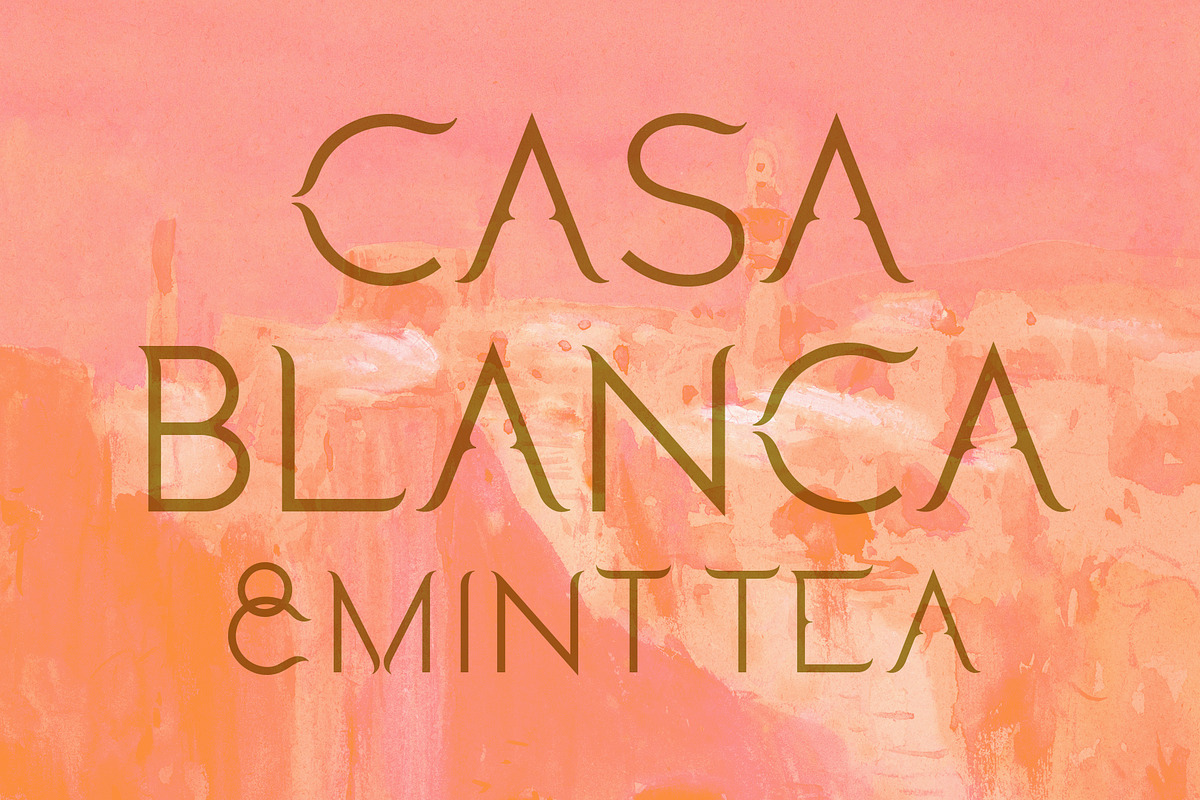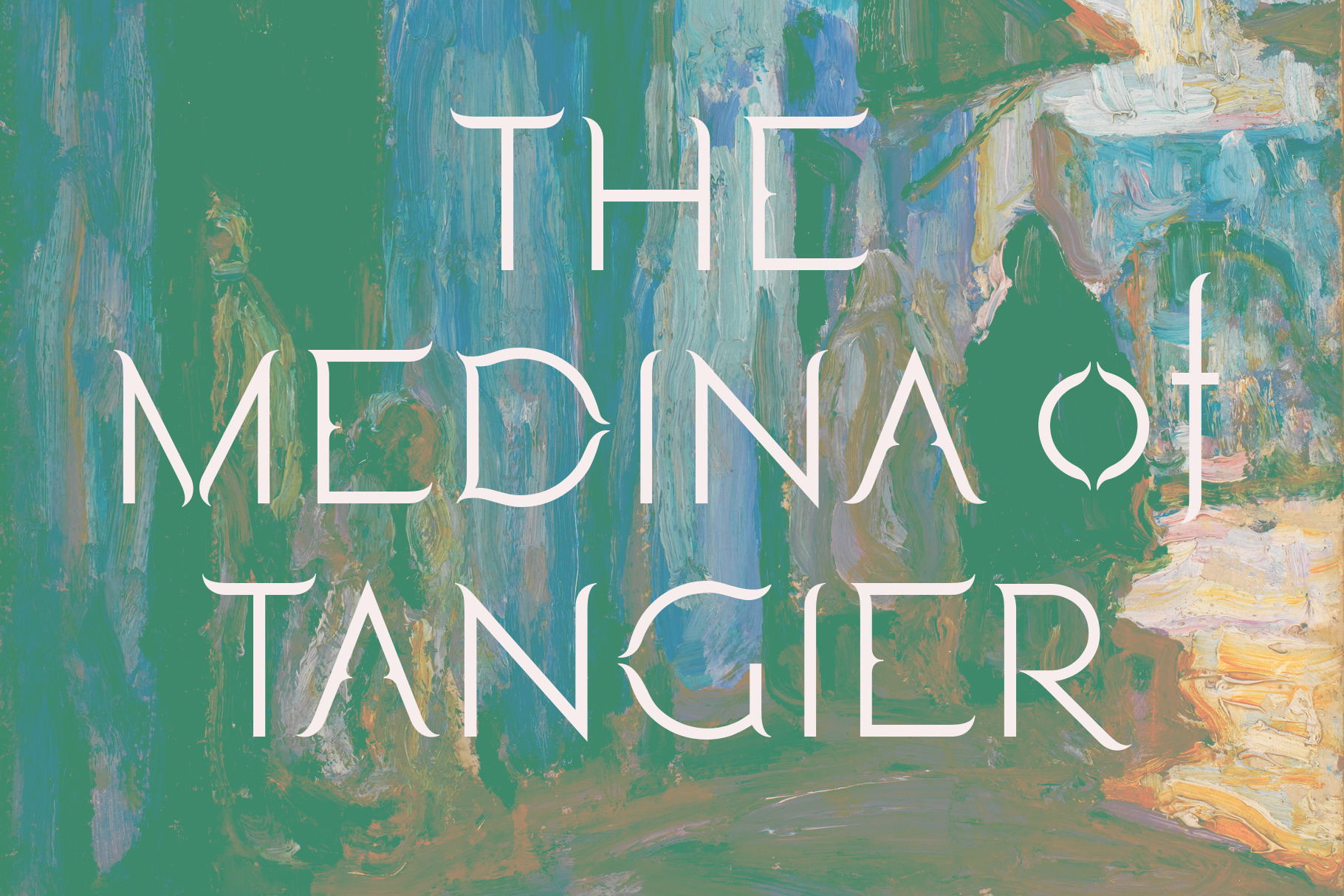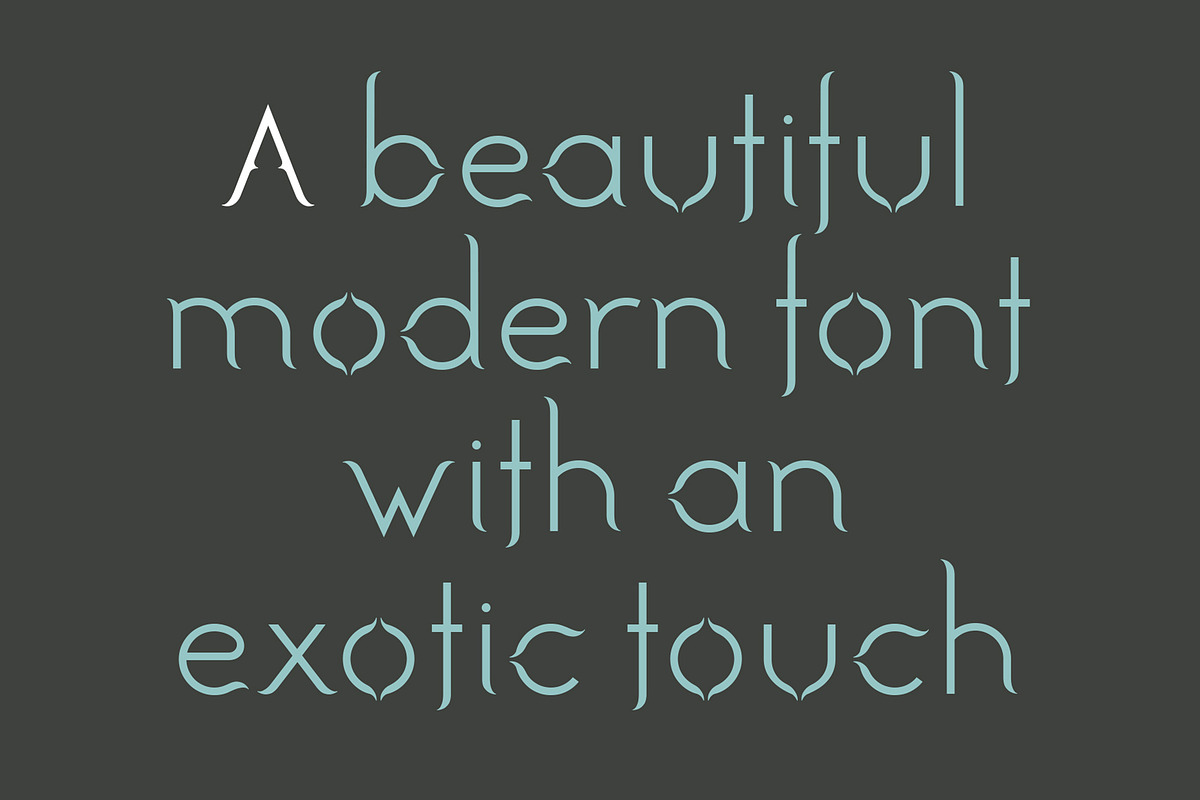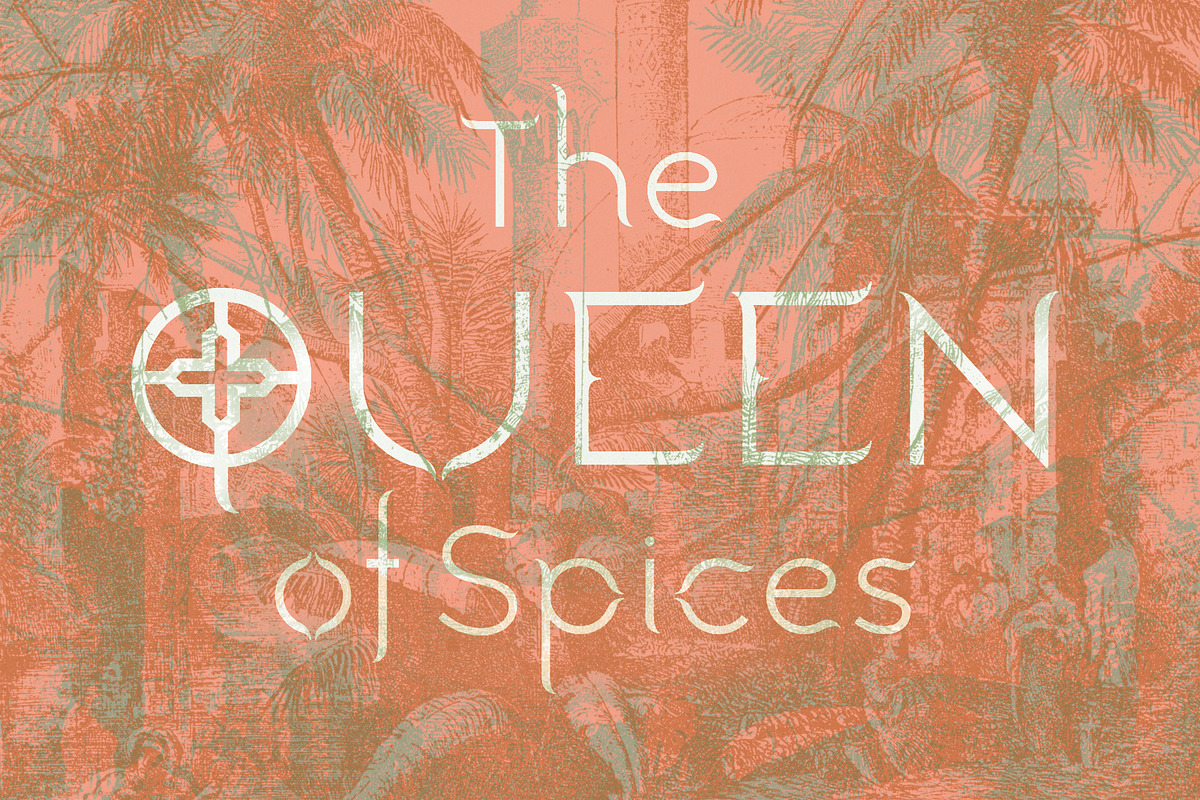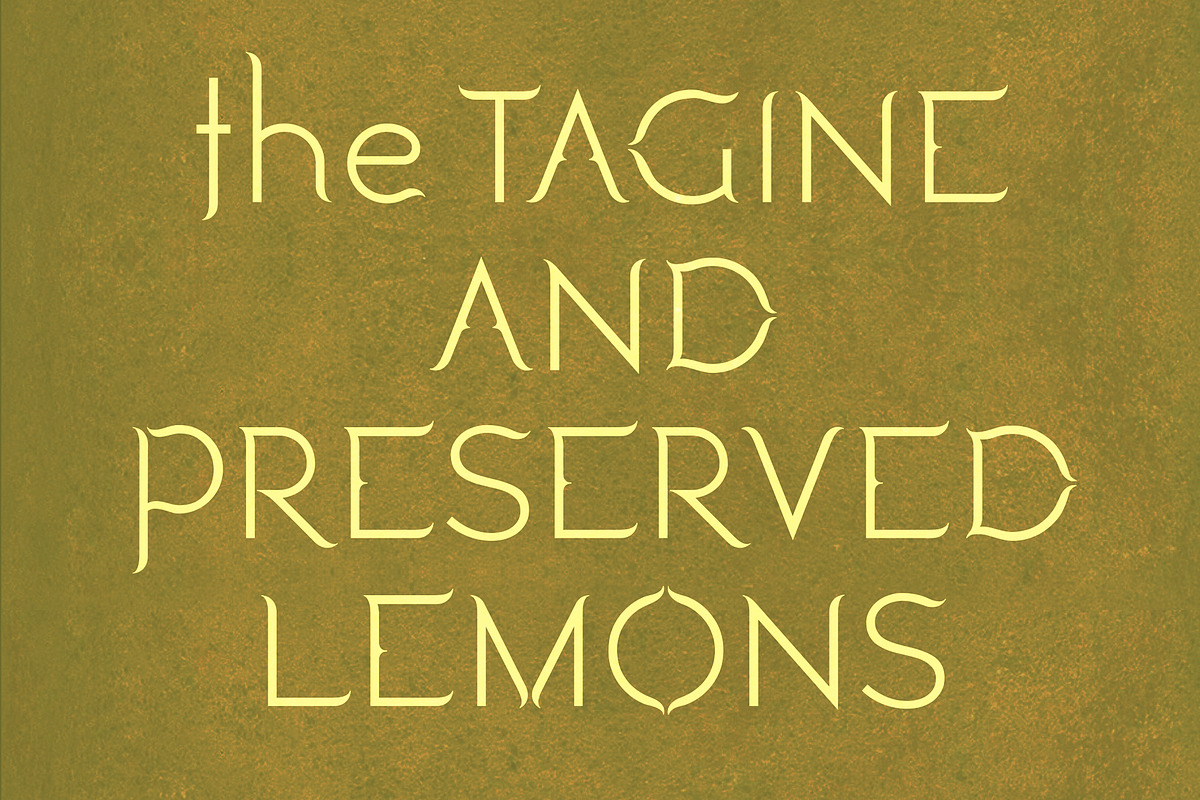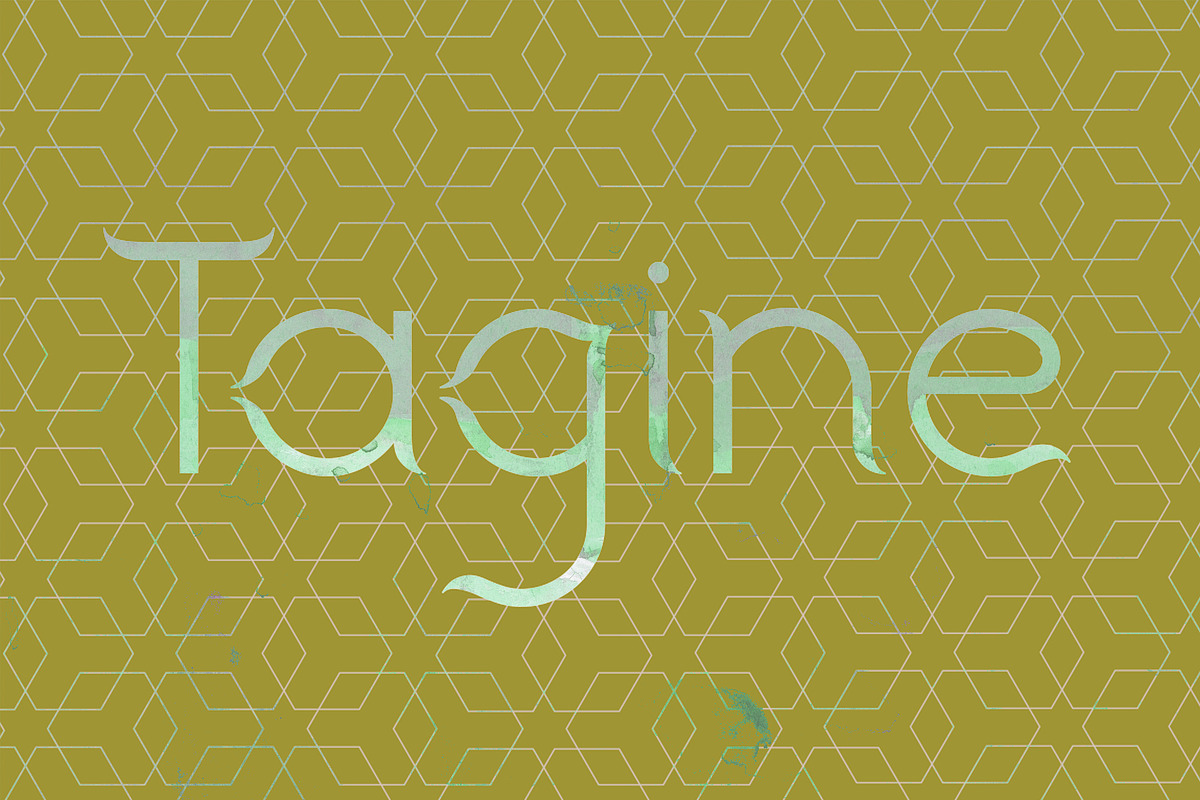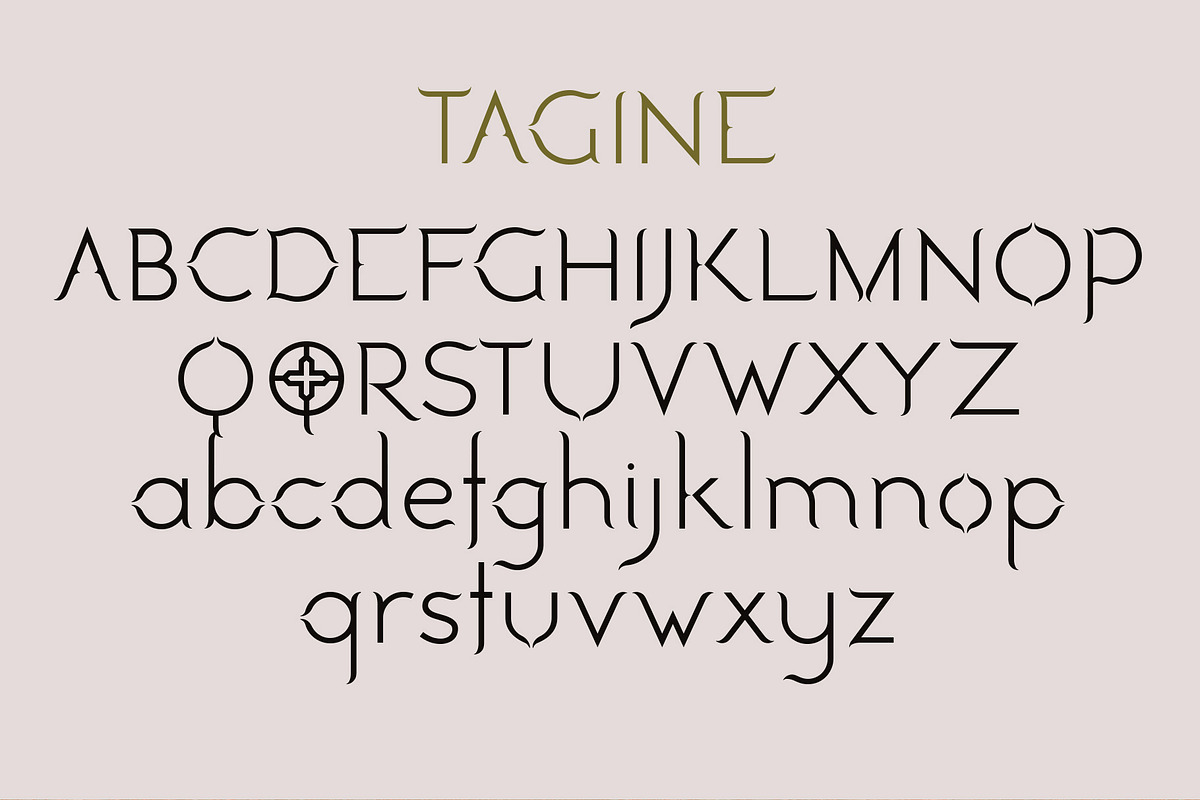
Tagine. Chic new font for designers
Tagine is a beautiful, contemporary, ‘sans-serif-looking’ font, given my trademark treatment of adding a subtle serif-like touch to it, this time inspired by the culture of Morocco.
The result is a stunning and versatile font with an exotic quality. Without being cliche or ‘theme-park’ and one that should be part of any professional designer’s font catalogue.
There are so many fonts out there that look almost identical to each other that it’s hard to tell one from the other. I designed Tagine so it can be used across many different design projects in print or online, whenever you need genuine character and a truly unique identity. As a designer I have used Tagine in FB branding, in food and wine packaging designs, on t-shirt and tote bags, in wedding designs and on record and book covers. As well as online in websites, and on Youtube and Influencer creator post titles.
Tagine comes in two weights and supports many European languages. Please note, this font includes a decorative capital 'Q' option, placed under 'Thorn' (Alt+T).